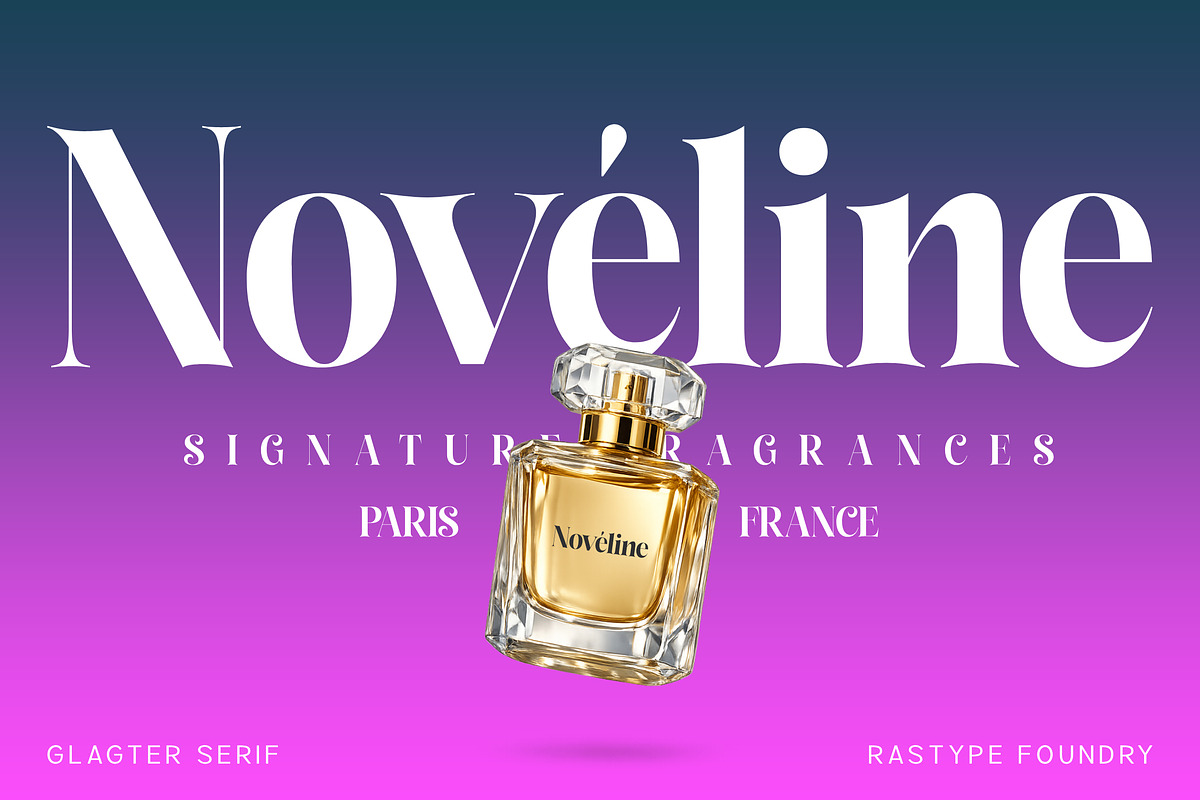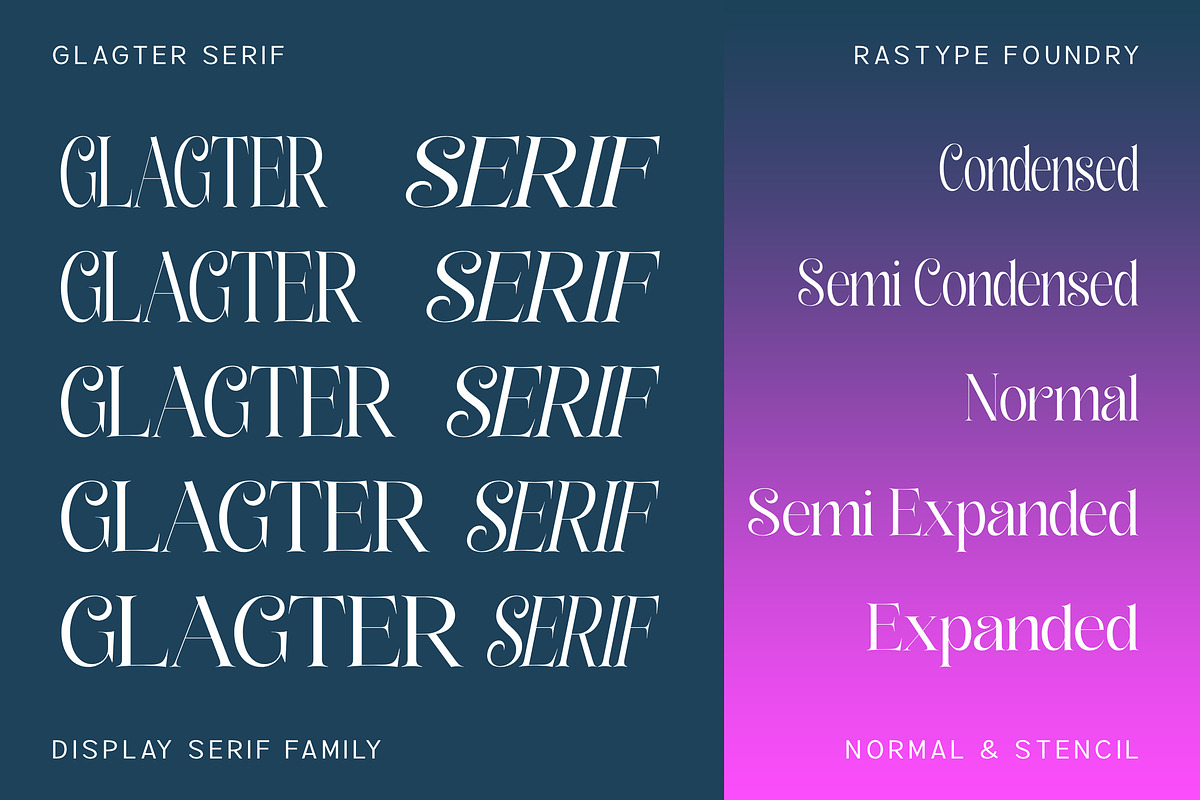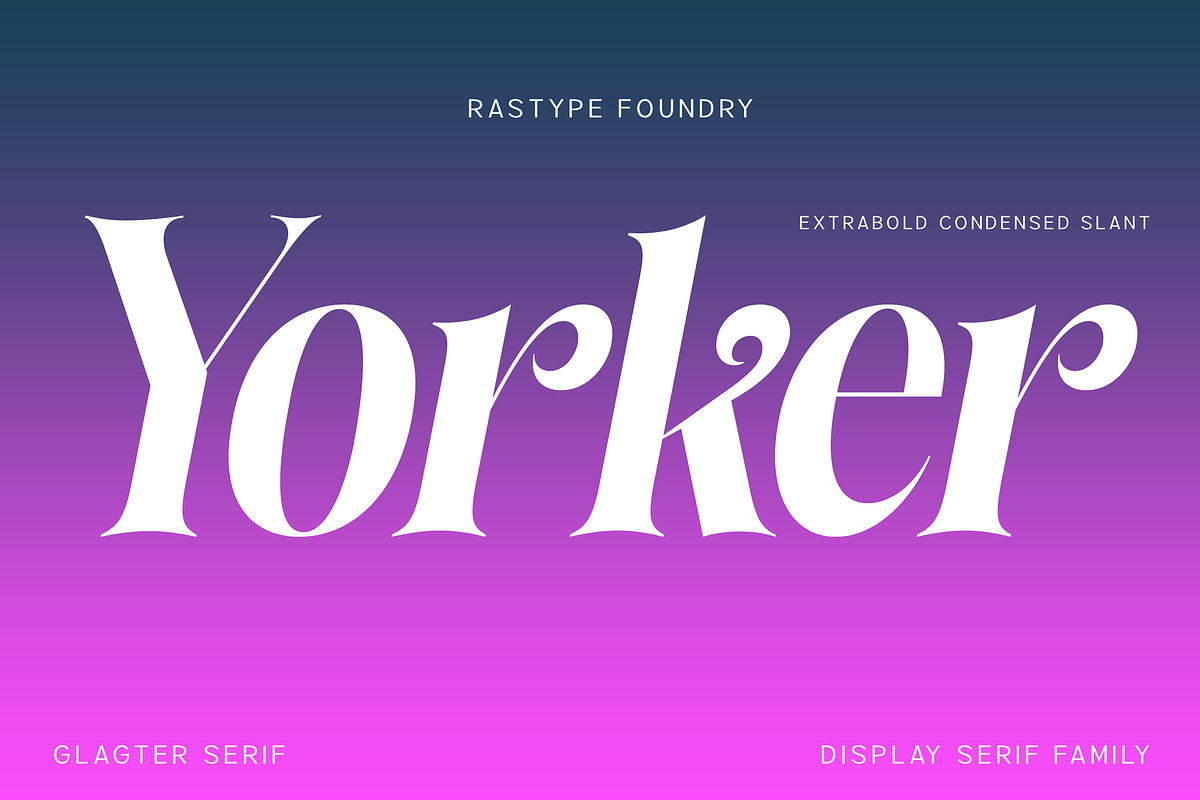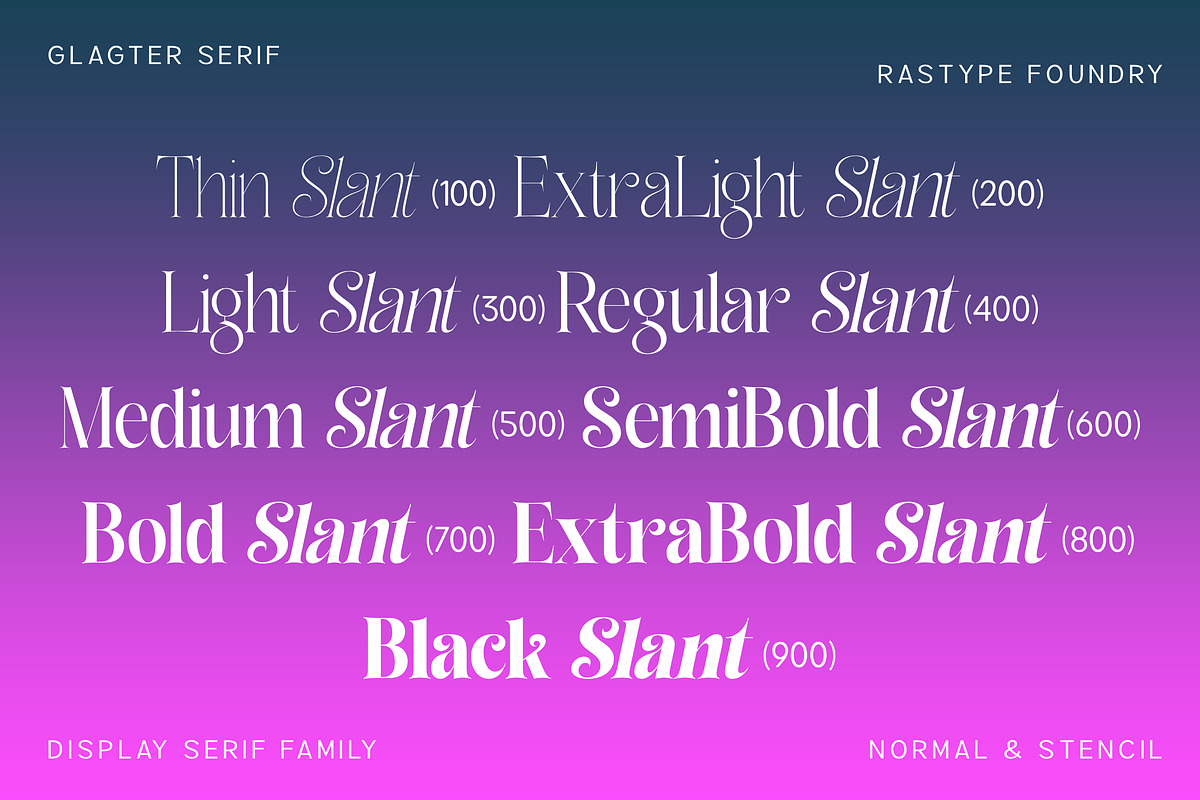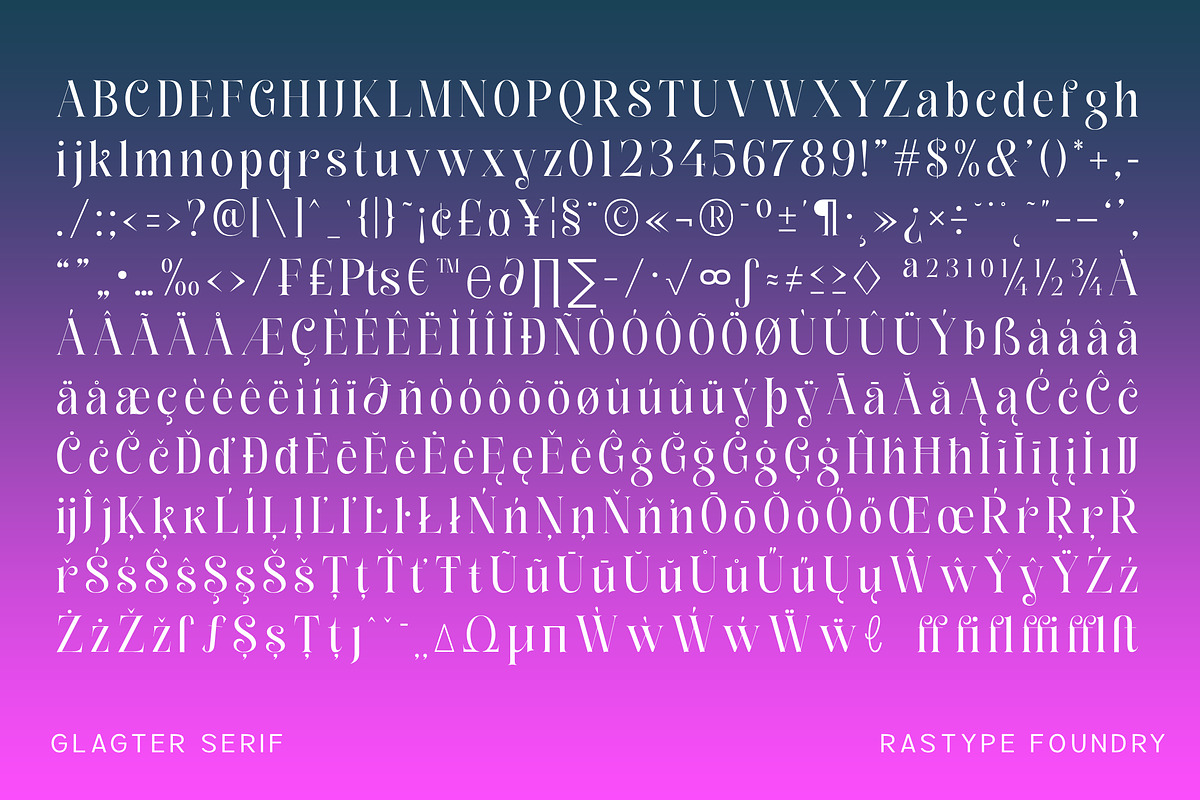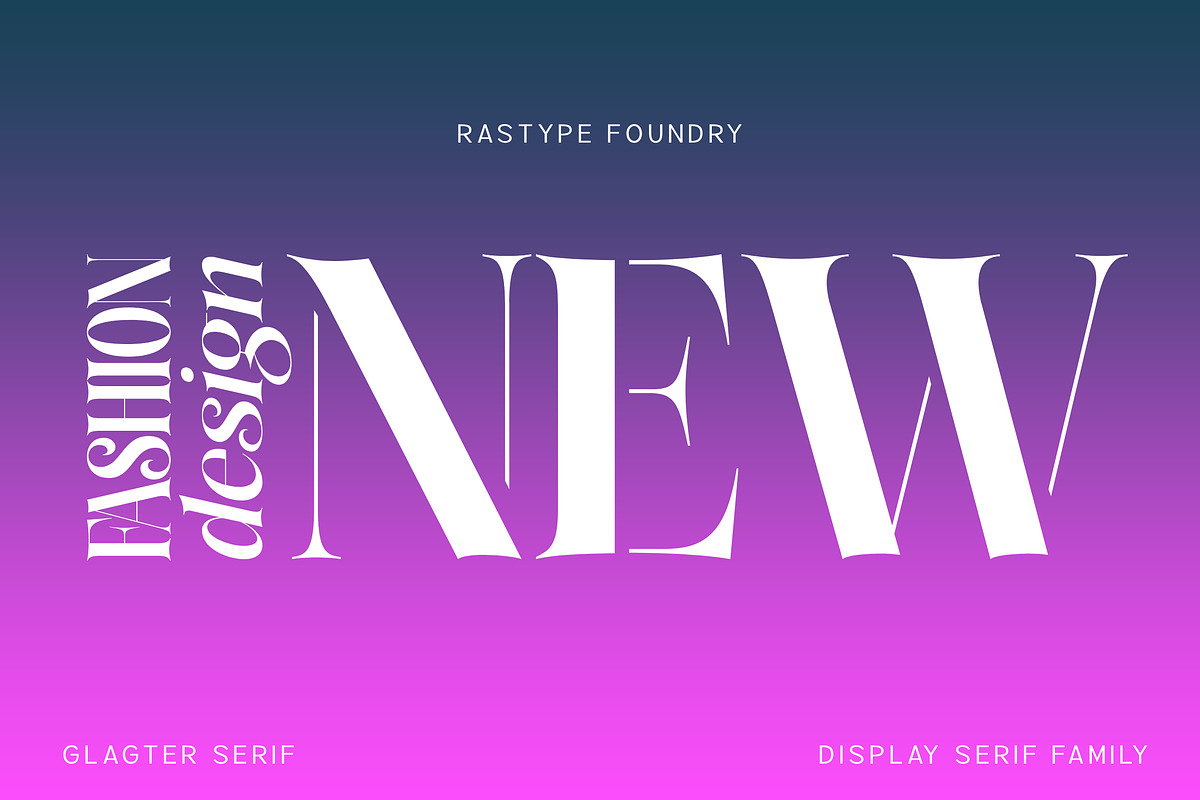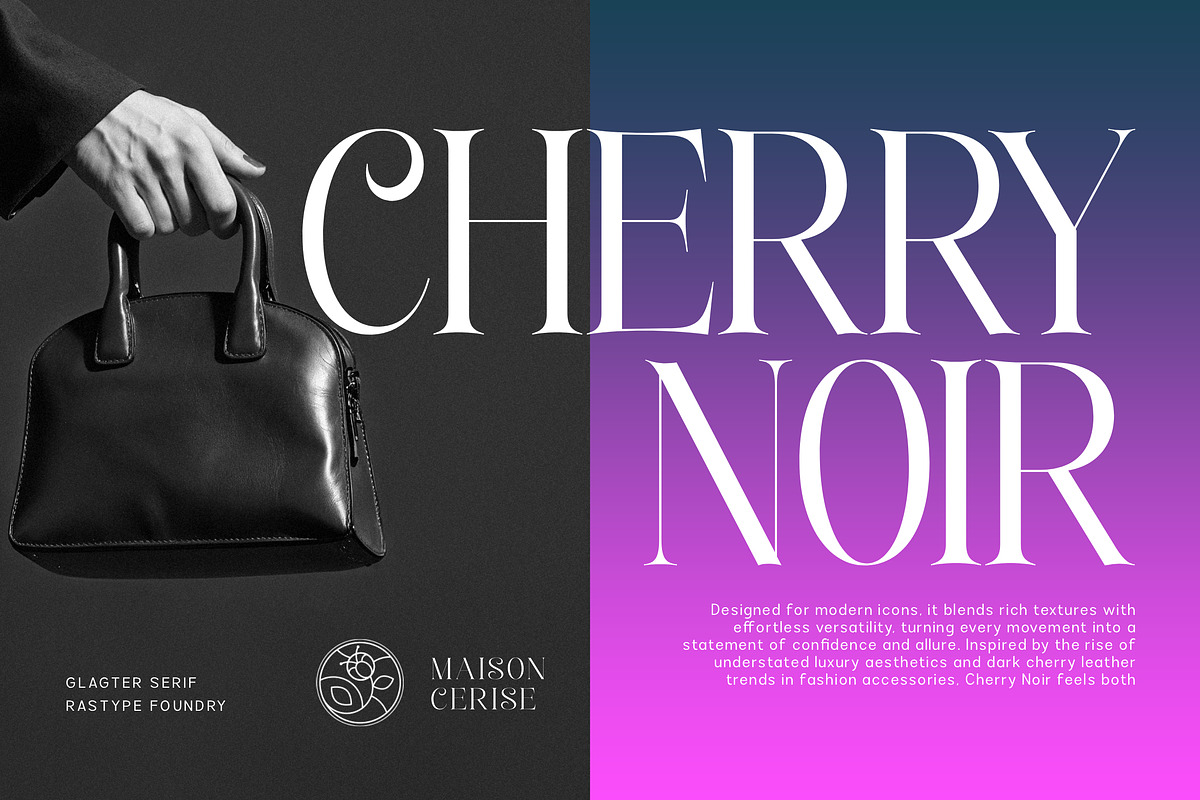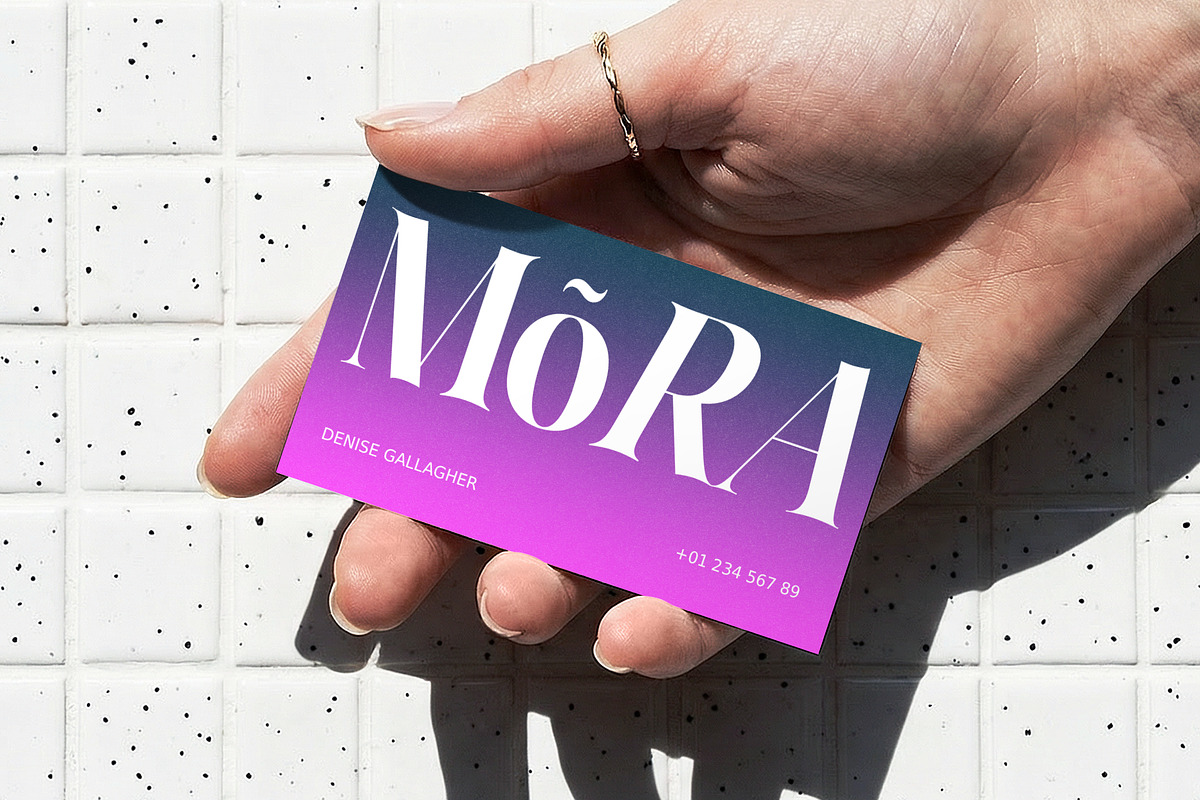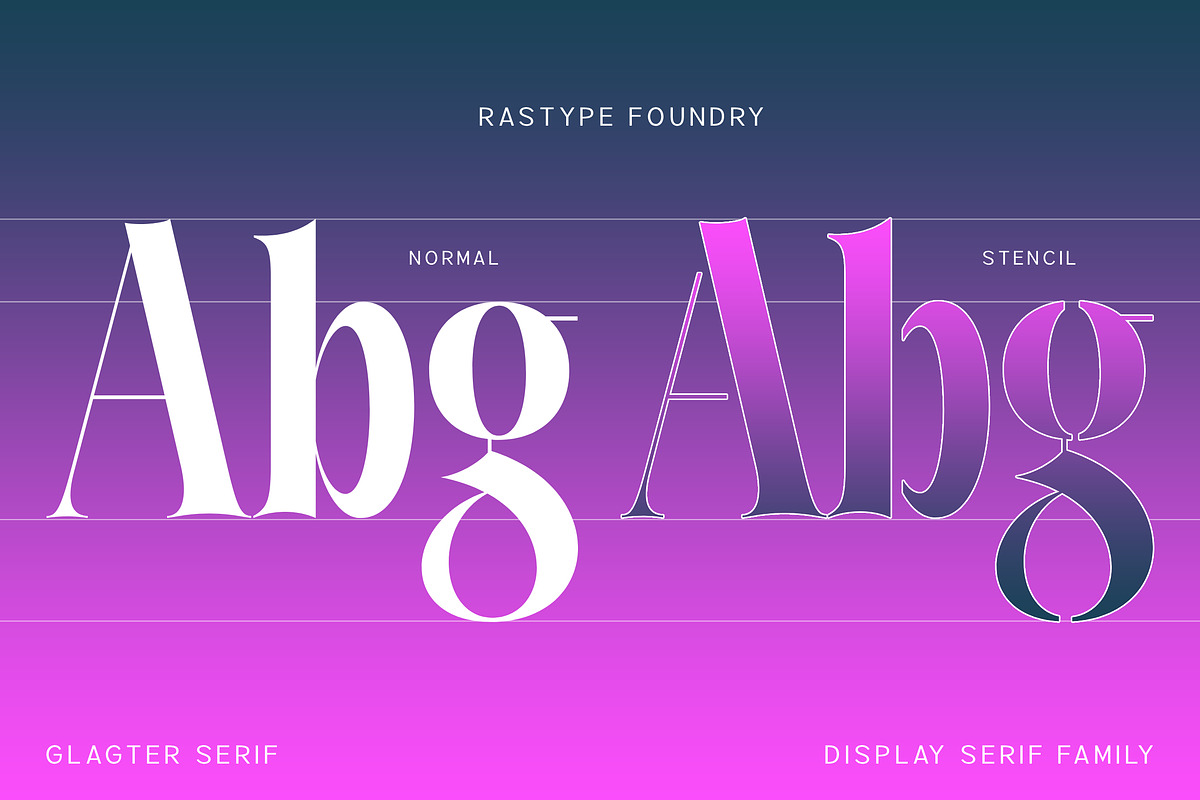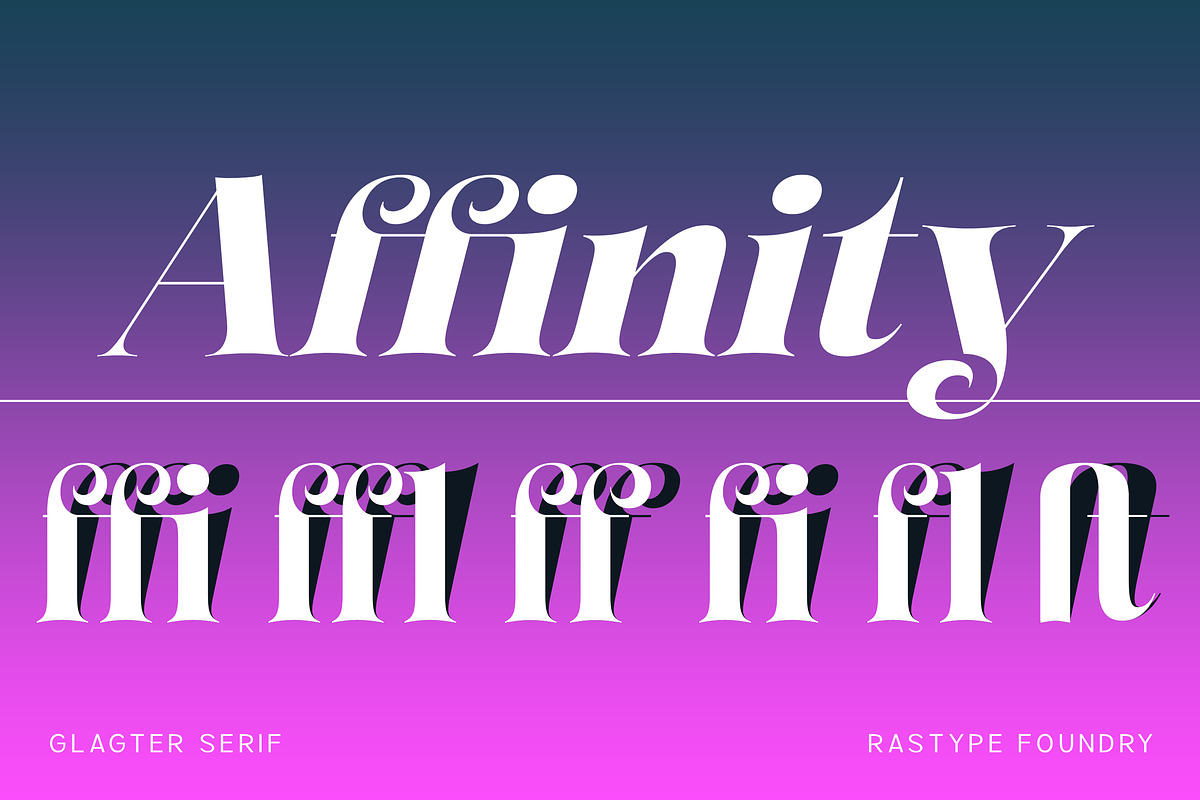
Glagter Normal - Family Font
Glagter is a luxurious display serif typeface that blends timeless elegance with modern sophistication. Featuring dramatic high-contrast strokes, refined curves, and distinctive sculpted serifs, this font is designed to command attention in premium branding, fashion editorials, cosmetic packaging, luxury invitations, and high-end marketing materials.
Its graceful letterforms create a striking visual presence while maintaining exceptional readability, making it perfect for logos, headlines, magazine covers, and elegant typography projects. With a balance of classic beauty and contemporary style, Glagter brings an exclusive and glamorous character to every design.